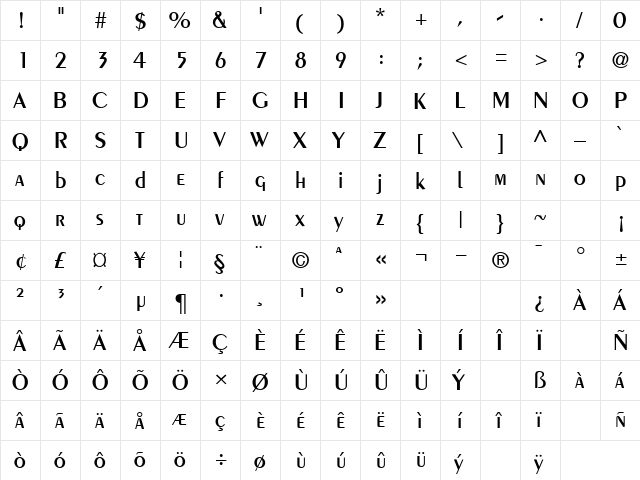
Overset Bold
Design Context for Overset Typeface
Overset is a composed and adaptable typeface that performs quietly and consistently across a wide range of design contexts. Its bold stroke weight gives it real presence on the page.